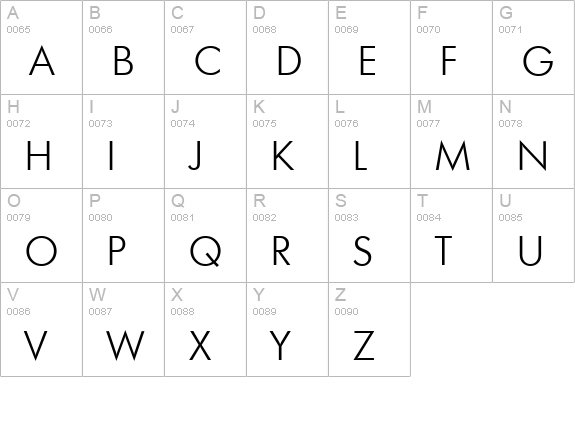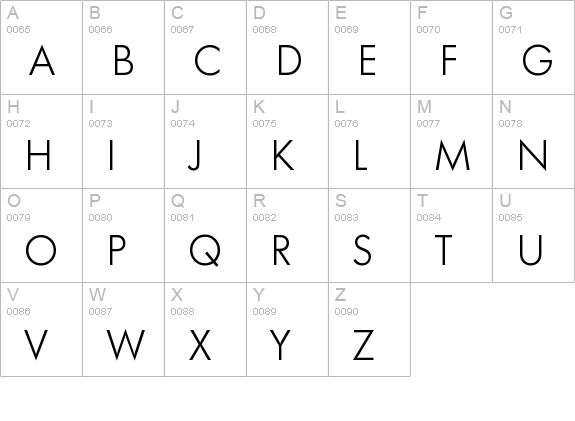
LimerickSerial-Light-Regular Font Details
LimerickSerial-Light-Regular is a refined, elegant variant in the LimerickSerial typeface family \xE2\x80\x94 well suited to elegant body text, refined sub-headings, and luxury branding.
LimerickSerial-Light-Regular font is a modern and elegant typeface that exudes sophistication and style. With its clean lines and balanced proportions, this font is perfect for a wide range of design projects, from branding to editorial work. What sets LimerickSerial-Light-Regular font apart is its versatility - it can be used for both headings and body text, making it a versatile choice for any designer. The light weight of the font gives it a delicate and refined look, while still maintaining excellent legibility. Best of all, LimerickSerial-Light-Regular font is completely free to download at FontsMarket.com. So you can add this beautiful typeface to your collection without any cost. Don't miss out on the opportunity to enhance your designs with this stunning font - download it today and elevate your projects to the next level.